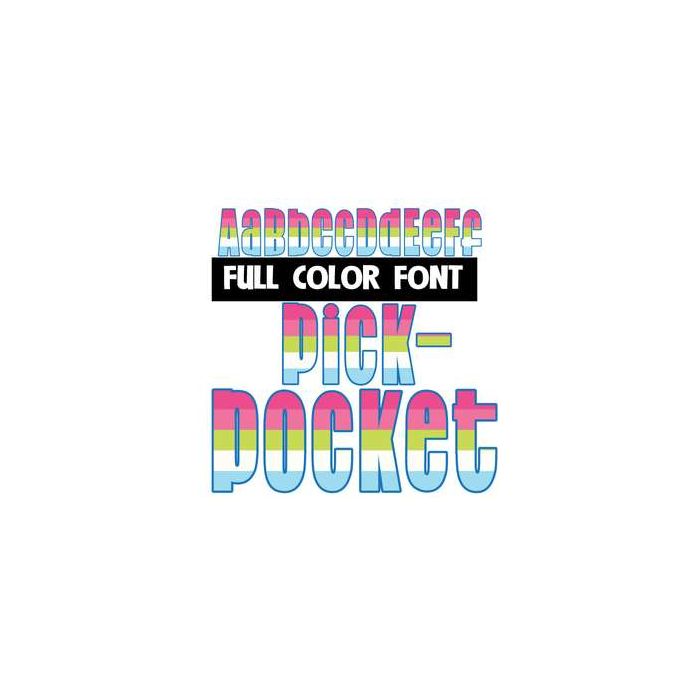
This full-color font features bright stripes throughout. This font works best for titles, displays, posters and more. Please note color fonts will show as black in non compatible programs. This font type is compatible with Silhouette Studio.